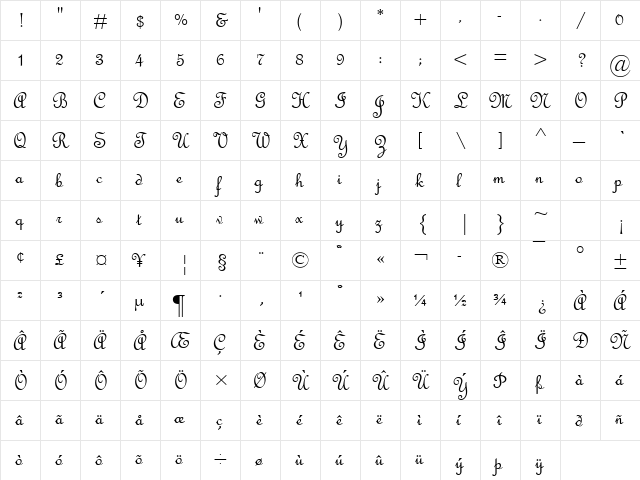
FrenchScript Regular
Design Context for FrenchScript Typeface
FrenchScript flows with the natural rhythm of handwritten lettering, making it ideal for designs that call for warmth and personal expression.
Font Pairing: Combine FrenchScript with a simple geometric sans for maximum contrast — the tension between flowing curves and clean structure is a classic typographic pairing.
Pro Tip: Pair FrenchScript with a clean sans-serif for supporting text. The contrast between fluid script and geometric structure creates an elegant typographic hierarchy.